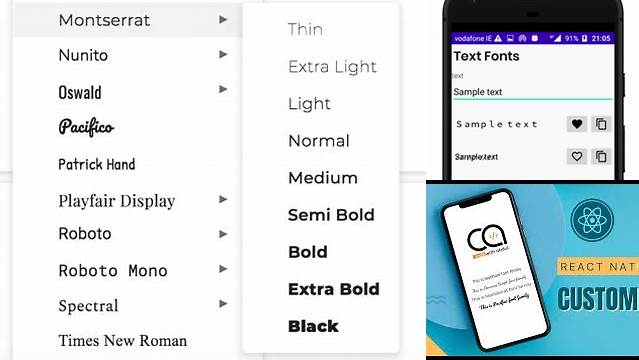
Download & Use Fonts On Phone: The Ultimate Guide
Hey guys! Ever wanted to spice up your phone's look? One of the easiest ways to do that is by changing your font! But if you're scratching your head wondering how to download and use fonts on your phone, you've come to the right place. This guide will walk you through everything you need to know, from finding cool fonts to installing and using them. Let's dive in!
1. Understanding Font Compatibility on Your Phone
Before we jump into downloading, let's talk compatibility. Not all phones are created equal, especially when it comes to fonts. Some phones, like those running Android, are pretty flexible, while others, like iPhones, are a bit more restrictive. Understanding your phone's operating system is the first step in how to download and use fonts on your phone. You need to know what type of fonts your phone supports and how the installation process works for your specific device. Generally, Android phones offer more customization options compared to iPhones, but don't worry, we'll cover both! It's essential to check your phone's specifications or user manual to ensure compatibility before downloading any fonts. This will save you a lot of hassle and prevent potential compatibility issues. Knowing whether your phone supports custom fonts directly or requires a third-party app is crucial. Additionally, you should be aware of any limitations your phone manufacturer might have placed on font customization. For example, some manufacturers may restrict the use of custom fonts to certain areas of the phone's interface. So, before you get too excited about that funky new font, make sure it will actually work on your device.
2. Finding Reputable Font Sources
Okay, so you know your phone's compatible. Now comes the fun part: finding fonts! There are tons of websites out there offering free and paid fonts. But how to download and use fonts on your phone safely? It's crucial to stick to reputable sources to avoid downloading malware or copyright-infringed fonts. Some popular websites include Google Fonts, DaFont, and FontSpace. These sites offer a wide variety of fonts, from classic styles to quirky and modern designs. Google Fonts is a fantastic option because it provides open-source fonts that are free for both personal and commercial use. DaFont and FontSpace are also great resources, but it's important to double-check the licensing information before using a font for commercial purposes. When browsing these websites, pay attention to user reviews and ratings. These can give you an idea of the font's quality and the reliability of the download source. You should also look for sites that offer previews of the font, so you can see how it will look on your phone before you download it. Remember, it’s always better to be safe than sorry, so stick to trusted sources when downloading fonts.
3. Downloading Fonts on Android
Android users, you're in luck! Android is super flexible when it comes to customization. So, how to download and use fonts on your phone if it's an Android? The process is usually pretty straightforward. You can download fonts directly from a website onto your phone. Typically, fonts come in a ZIP file, which you'll need to extract. After extracting, you'll find the font file, usually in a .ttf or .otf format. These are the file types your phone can recognize. Some Android phones have built-in font customization options, allowing you to directly install the font from your phone's settings. Go to Settings > Display > Font, and you might find an option to add fonts. If your phone doesn't have this built-in feature, don't worry! There are plenty of third-party apps available on the Google Play Store that can help you install and manage fonts. Apps like iFont and HiFont are popular choices. They allow you to browse, download, and install fonts with ease. When using these apps, make sure to grant them the necessary permissions to access your phone's storage. It's also a good idea to read reviews and check the app's permissions before installing it to ensure it's safe and reliable. Android's open nature makes font customization relatively easy, giving you plenty of options to personalize your phone.
4. Downloading Fonts on iPhone
Okay, iPhone users, let's talk about how to download and use fonts on your phone. iPhones are a bit more restrictive than Android when it comes to font customization. You can't directly install fonts system-wide like you can on Android. However, there's a workaround! You can use apps that support custom fonts, like word processors or graphic design apps. For example, apps like Adobe Creative Cloud and Pages (Apple's word processing app) allow you to import and use custom fonts within the app. To install fonts for these apps, you'll typically need to download the font file (usually .ttf or .otf) to your iPhone. Then, open the app that supports custom fonts and look for an option to import or add fonts. The process might vary slightly depending on the app, but it usually involves navigating to the font file in your phone's storage and selecting it. Another way to use custom fonts on your iPhone is through keyboard apps. Some third-party keyboard apps allow you to use different fonts for your typing. However, keep in mind that this will only change the font in the keyboard and not system-wide. While iPhones don't offer the same level of font customization as Android, these methods provide some flexibility for users who want to personalize their phone's appearance. It's important to note that Apple's approach to font management prioritizes security and stability, which is why system-wide font installation is restricted.
5. Installing Fonts Using Third-Party Apps (Android)
As we mentioned earlier, third-party apps can be a lifesaver for Android users when it comes to font installation. Let's dive deeper into how to download and use fonts on your phone using these apps. Apps like iFont, HiFont, and FontFix are popular choices. These apps usually have a user-friendly interface that makes browsing and installing fonts a breeze. First, you'll need to download and install the app from the Google Play Store. Once installed, open the app and browse the font library. Most apps have a wide selection of fonts, categorized by style or popularity. When you find a font you like, tap on it to preview it. If you're happy with the preview, you can usually download the font directly from the app. After downloading, the app will guide you through the installation process. This might involve granting the app permission to modify system settings or install fonts. Follow the on-screen instructions carefully to ensure the font is installed correctly. Once the font is installed, you can usually apply it through the app or your phone's settings (Settings > Display > Font). Keep in mind that some apps may require root access to install fonts system-wide. Rooting your phone can void your warranty and expose your device to security risks, so it's generally not recommended unless you're an advanced user. Third-party apps offer a convenient way to manage fonts on Android, but it's essential to choose reputable apps and grant them only the necessary permissions.
6. Using Fonts in Specific Apps (iOS & Android)
So, you've downloaded your fonts – awesome! Now, how to download and use fonts on your phone within specific apps? Whether you're on iOS or Android, this is where the fun really begins. On iOS, as we discussed, you'll primarily be using fonts within apps that support them. Think word processors like Pages, graphic design tools like Adobe Creative Cloud, and even some social media apps that let you customize your posts. To use a font in one of these apps, you'll typically need to import it into the app first. This usually involves navigating to the font file (.ttf or .otf) in your phone's storage and selecting it. Once the font is imported, you can select it from the font menu within the app. On Android, the process can be a bit more flexible. If you've installed a font system-wide, it should be available in most apps that allow font customization. This includes messaging apps, email clients, and even some games. To change the font in an app, look for font settings within the app's preferences or customization options. The exact steps will vary depending on the app, but it usually involves selecting the font from a list of available fonts. Some apps may also allow you to adjust the font size, color, and style. Experimenting with different fonts in different apps is a great way to personalize your phone's appearance and make it truly your own. Just remember to choose fonts that are legible and appropriate for the context.
7. Managing Installed Fonts
Okay, you've got a font library growing – sweet! But how to download and use fonts on your phone effectively also means managing those fonts. Over time, you might accumulate a lot of fonts, some of which you rarely use. Managing your installed fonts can help keep your phone running smoothly and make it easier to find the fonts you need. On Android, if you've installed fonts using a third-party app, the app will usually have a font management section. This allows you to view a list of installed fonts, uninstall fonts you no longer need, and sometimes even preview fonts before using them. If you've installed fonts directly through your phone's settings, you might find a font management option in the display or font settings. This will allow you to remove fonts that are no longer needed. On iOS, managing fonts is a bit more app-specific. Since fonts are typically installed within individual apps, you'll need to manage them within those apps. For example, in Pages, you can remove fonts from the font menu. Regularly reviewing your installed fonts and removing those you don't use can help free up storage space on your phone and make it easier to find the fonts you love. It's also a good idea to keep a backup of your favorite fonts in case you need to reinstall them in the future. Managing your fonts is a crucial part of keeping your phone organized and personalized.
8. Font Styles and Pairings
Fonts aren't just about looks; they're about communication! Understanding different font styles and how to download and use fonts on your phone to create effective pairings can really elevate your phone's aesthetic. There are tons of font styles out there: serif, sans-serif, script, display… the list goes on! Serif fonts, like Times New Roman, have small decorative strokes at the end of the letters and are often seen as classic and formal. Sans-serif fonts, like Arial, are cleaner and more modern. Script fonts mimic handwriting and can add a touch of elegance, while display fonts are more decorative and eye-catching, perfect for headings or titles. Pairing fonts effectively is an art. A good rule of thumb is to combine a serif font with a sans-serif font. For example, you might use a serif font for the body text and a sans-serif font for the headings. This creates a visual contrast that's pleasing to the eye. Avoid pairing fonts that are too similar, as this can look bland and uninspired. You should also avoid using too many different fonts in one design, as this can look cluttered and confusing. When choosing fonts, think about the message you want to convey. A playful font might be great for a personal project, but not so appropriate for a professional presentation. Experimenting with different font styles and pairings can be a lot of fun, and it's a great way to develop your design skills.
9. Troubleshooting Font Issues
Okay, sometimes things go sideways. Let's talk about troubleshooting! You've downloaded a font, but how to download and use fonts on your phone when things don't go as planned? Maybe the font isn't showing up, or it looks weird. Don't panic! There are a few things you can try. First, make sure the font file is actually compatible with your phone. As we discussed earlier, Android and iOS handle fonts differently, and not all fonts work on all devices. If you're on Android, try restarting your phone. This can often resolve minor glitches and ensure the font is properly loaded. If you've installed the font using a third-party app, try clearing the app's cache and data. This can sometimes fix issues caused by corrupted files or settings. If the font looks distorted or pixelated, it might be a low-quality font file. Try downloading the font from a different source or choosing a different font altogether. If you're on iOS and the font isn't showing up in an app, make sure you've imported it correctly. Some apps have specific instructions for importing fonts, so be sure to follow them carefully. If you're still having trouble, try searching online for solutions specific to your phone model and operating system. There are tons of online forums and communities where people share tips and troubleshooting advice. Remember, technology can be finicky, so don't get discouraged if things don't work perfectly the first time. With a little patience and some troubleshooting, you'll be rocking your new fonts in no time.
10. Font Licensing and Usage Rights
This is super important, guys! How to download and use fonts on your phone also means understanding font licensing. Not all fonts are free to use for everything. Some fonts are free for personal use but require a license for commercial use (like in a logo or a product). Others are completely free, and some you have to buy. It's crucial to check the font's license before you use it, especially if you're using it for anything beyond personal projects. You can usually find licensing information on the website where you downloaded the font. Look for terms like